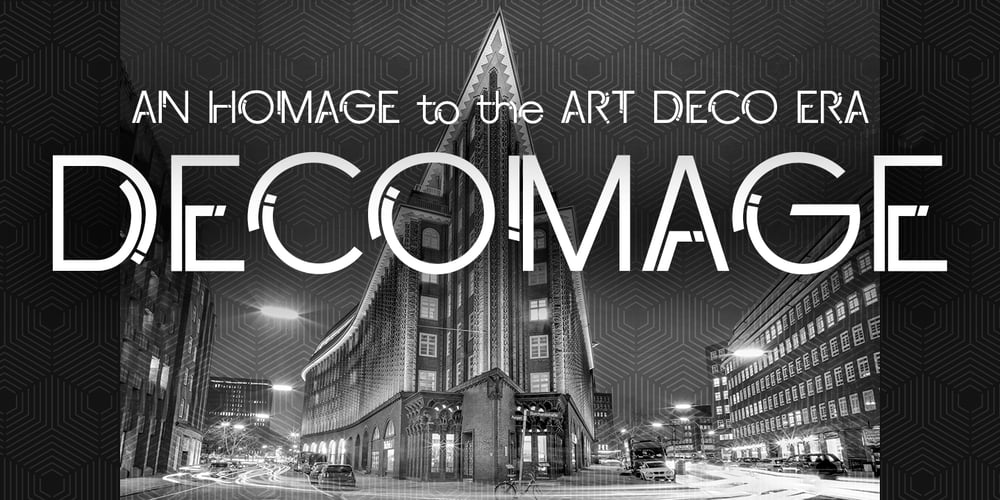
HS Decomage Font Family was designed by Suzanne Hemphill and published by Hemphill Studio. HS Decomage contains 1 styles and family package options. HS Decomage was created by a desire for a more modern approach and as an homage to the Art Deco period. HS Decomage has a large set of ligatures to make optimum spacing easier to accomplish and stylistic alternatives give design choices. HS Decomage works great for headlines but also handles descriptive text quite well. Multi-lingual characters, numbers and punctuation are included in HS Decomage.